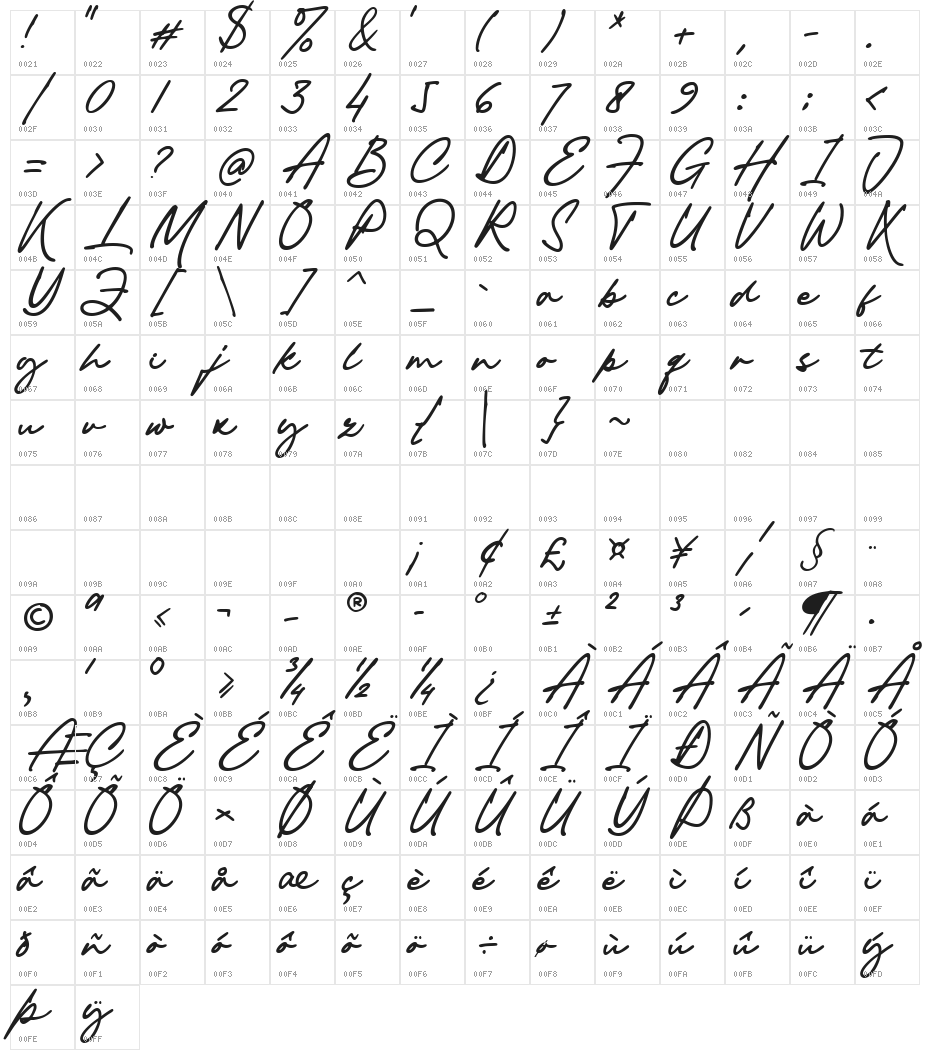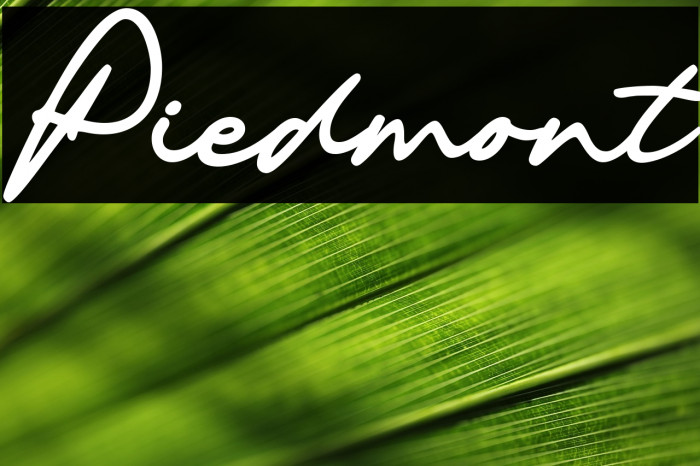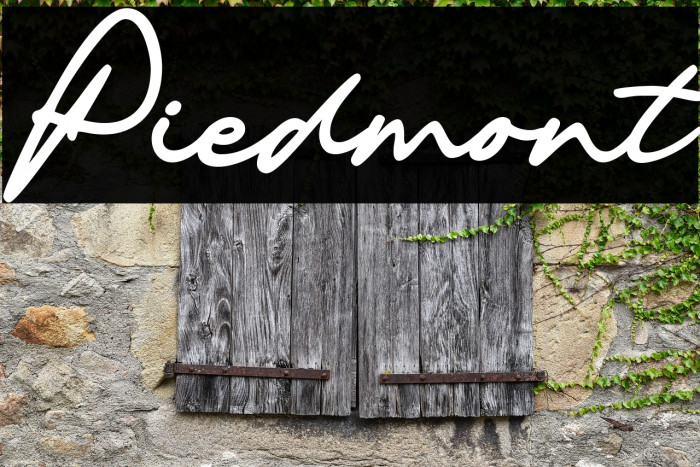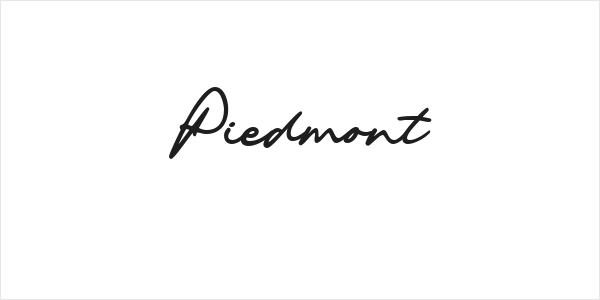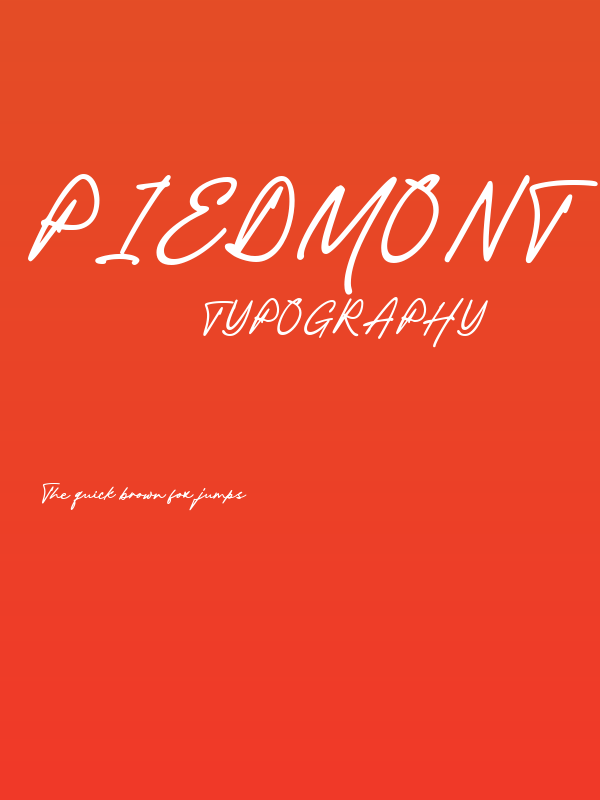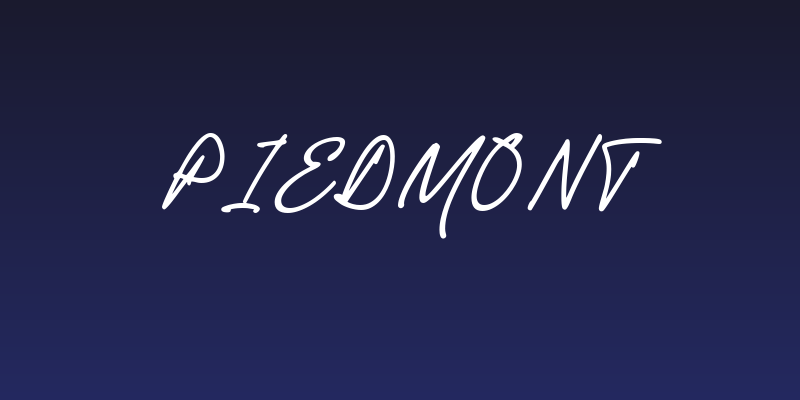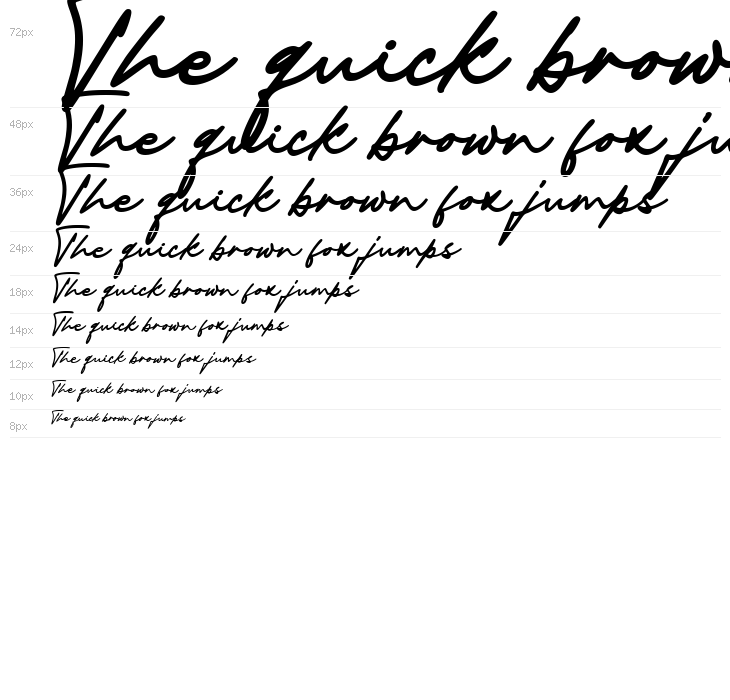
Piedmont Font
Piedmont Description
This font features a fluid and elegant script style, characterized by its smooth, flowing lines and cursive nature. The uppercase letters are slightly more formal, with a consistent slant and graceful curves, while the lowercase letters maintain a casual, handwritten feel. The numerals are clear and legible, complementing the overall script aesthetic. Special characters are integrated seamlessly, maintaining the font's cohesive style. This font exudes a sense of sophistication and personal touch, making it ideal for projects that require a handwritten or calligraphic look.
| Overall Style | Elegant, Handwritten |
| Proposed Projects | Ideal for wedding invitations, greeting cards, personal branding, and elegant stationery. |